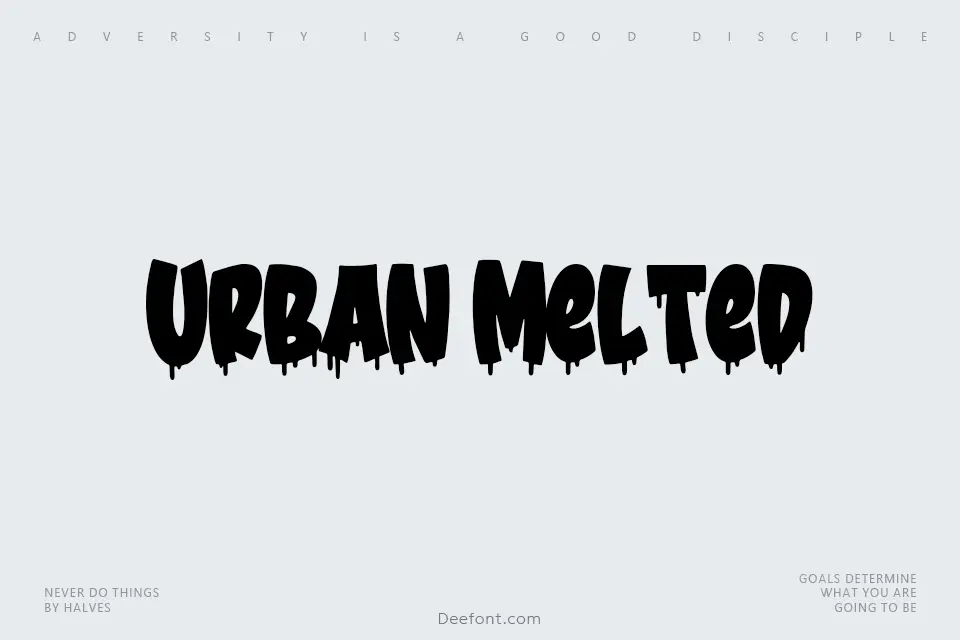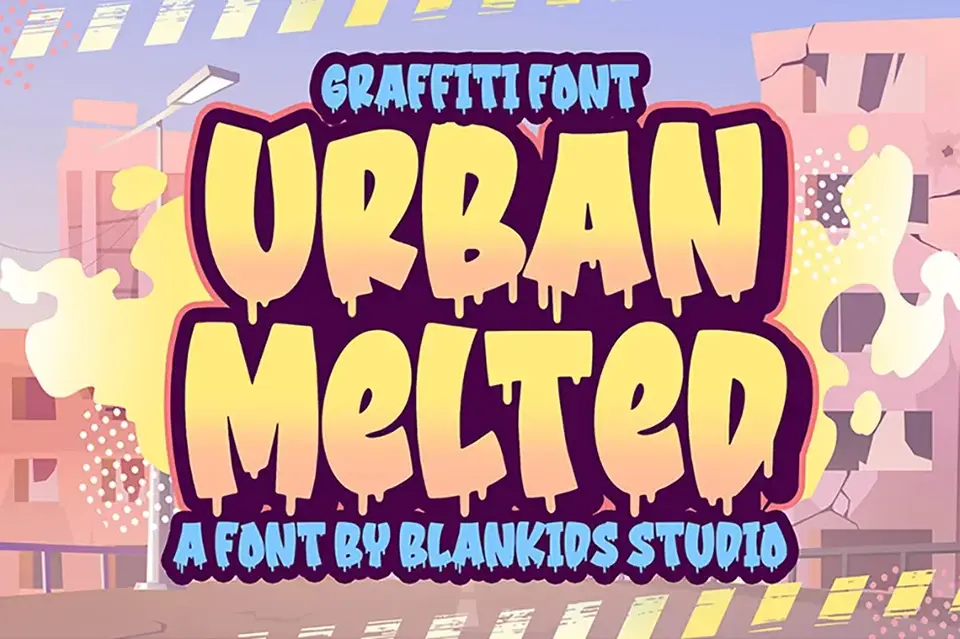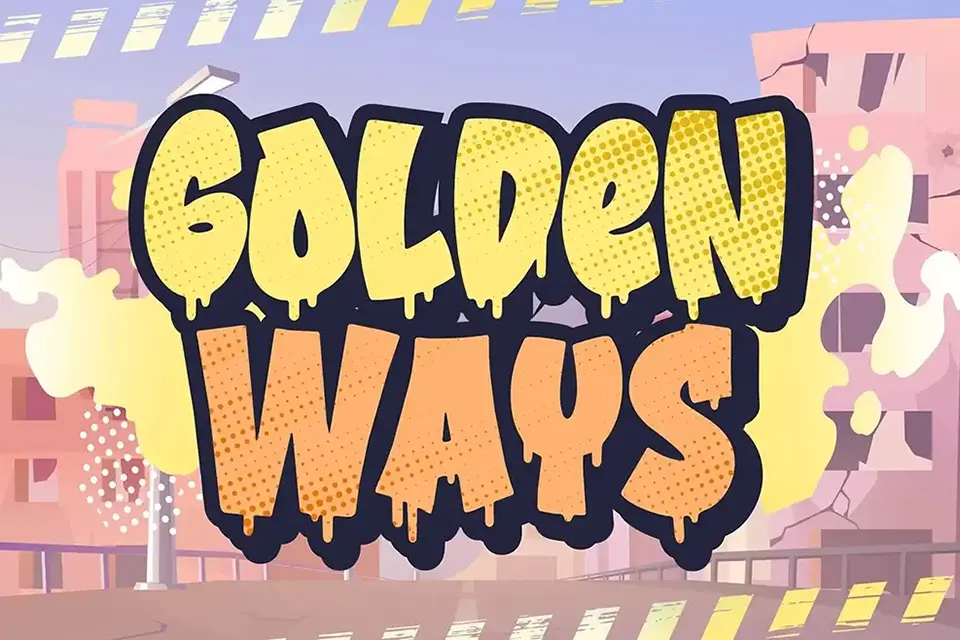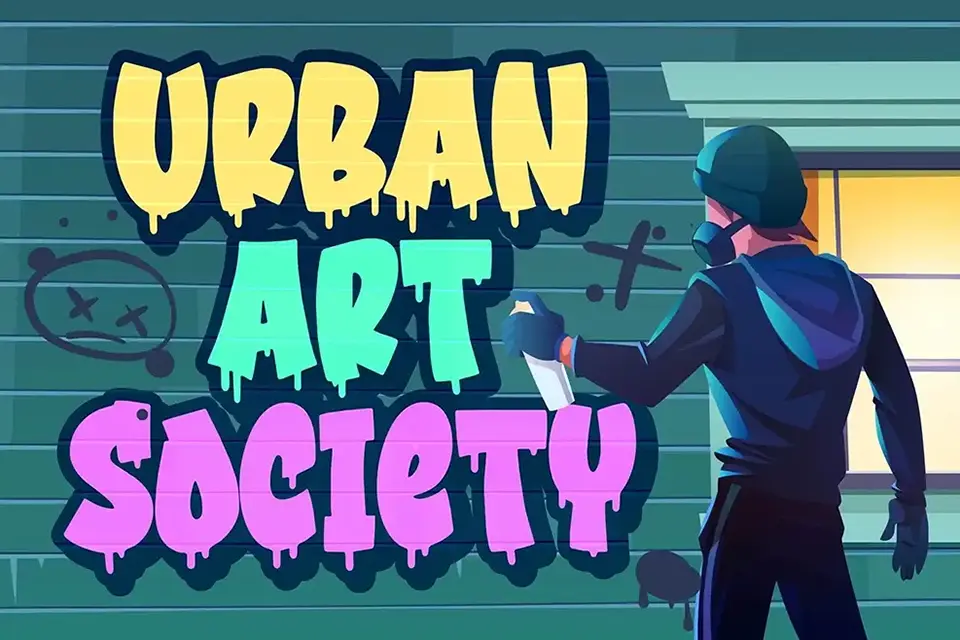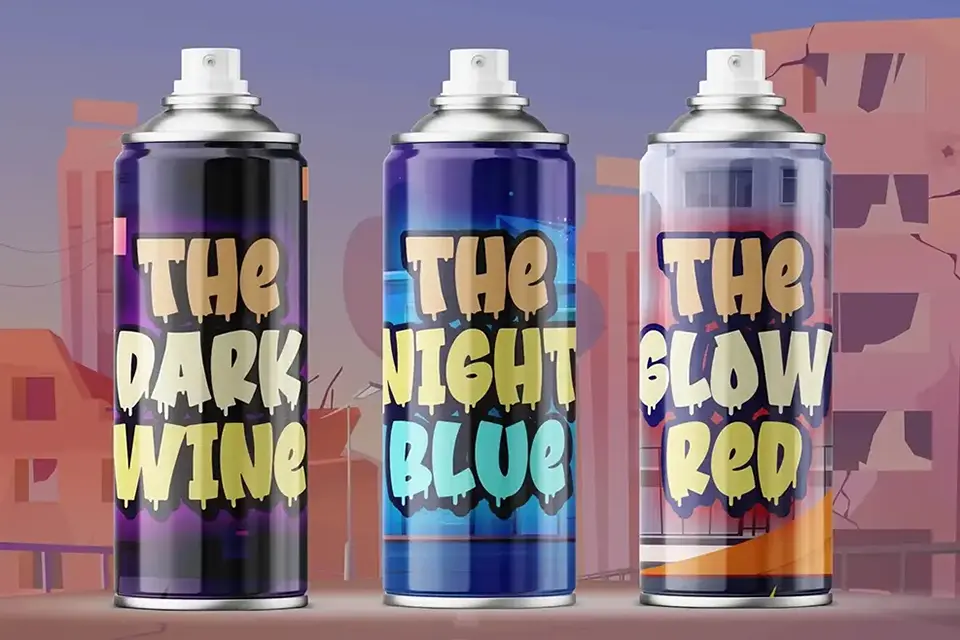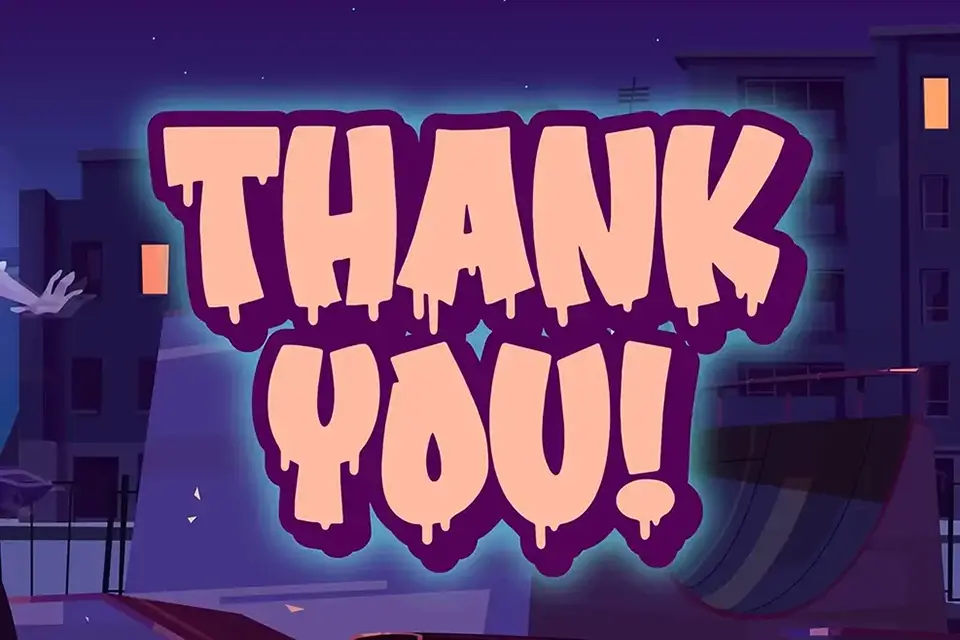
Urban Melted Font
Urban Melted is a bold, graffiti-inspired display font featuring playful dripping letterforms that evoke the appearance of wet paint. With thick, substantial characters and irregular edges, this font delivers an edgy, streetwise aesthetic perfect for urban-themed designs. Its distinctive melting effect and energetic presence make it ideal for book covers, posters, merchandise, and creative projects that demand visual impact and contemporary flair. The font maintains excellent readability despite its artistic style, making it suitable for headlines and attention-grabbing typography.